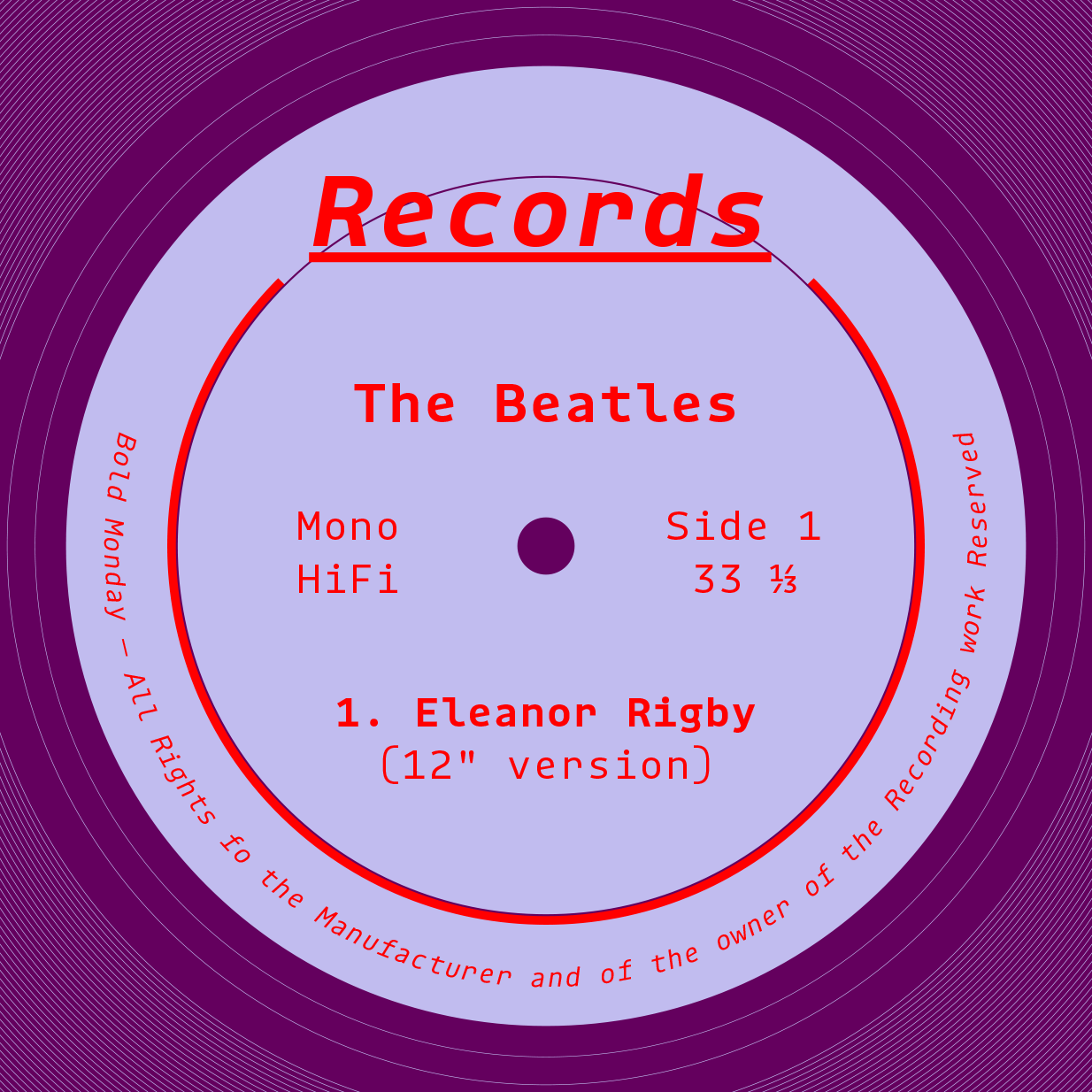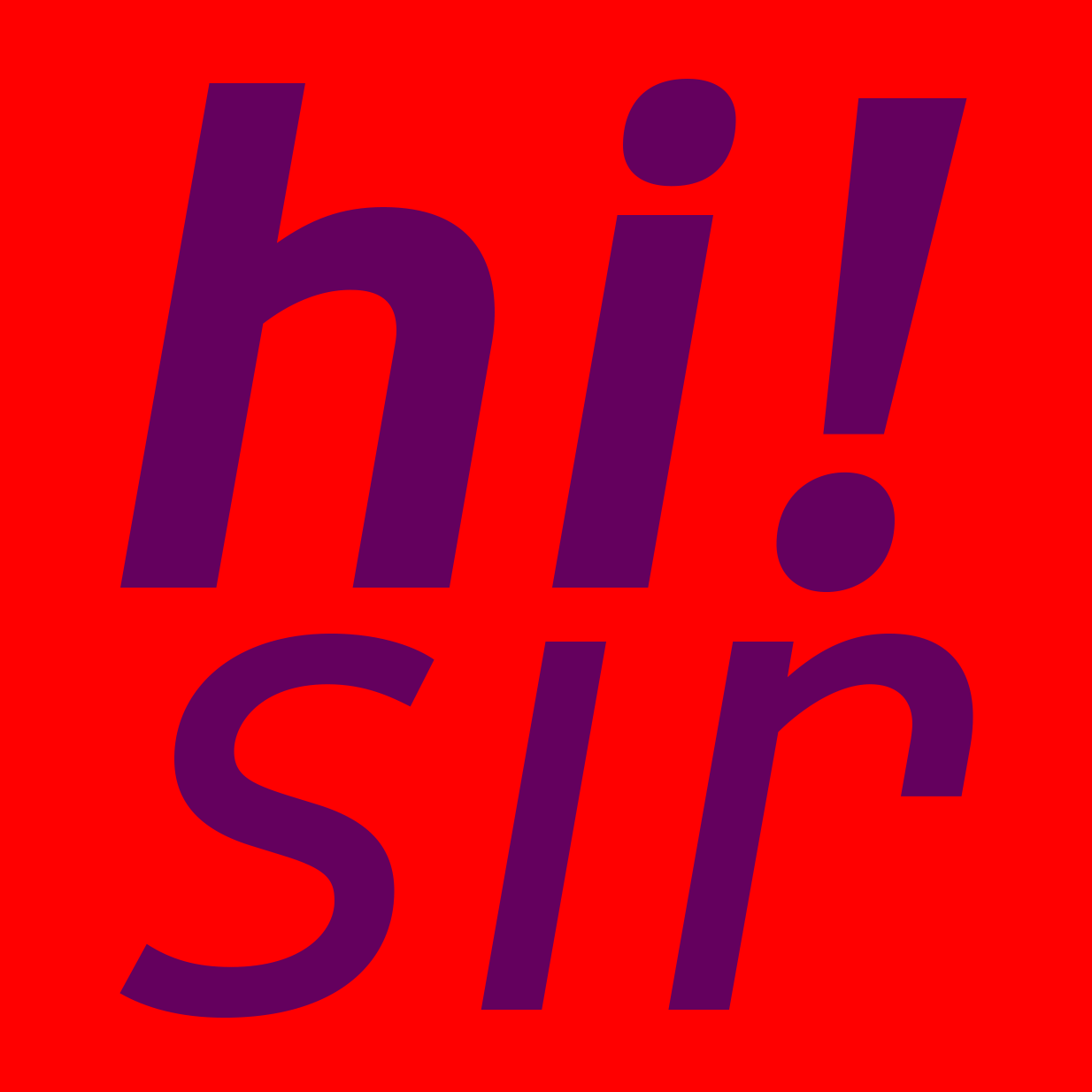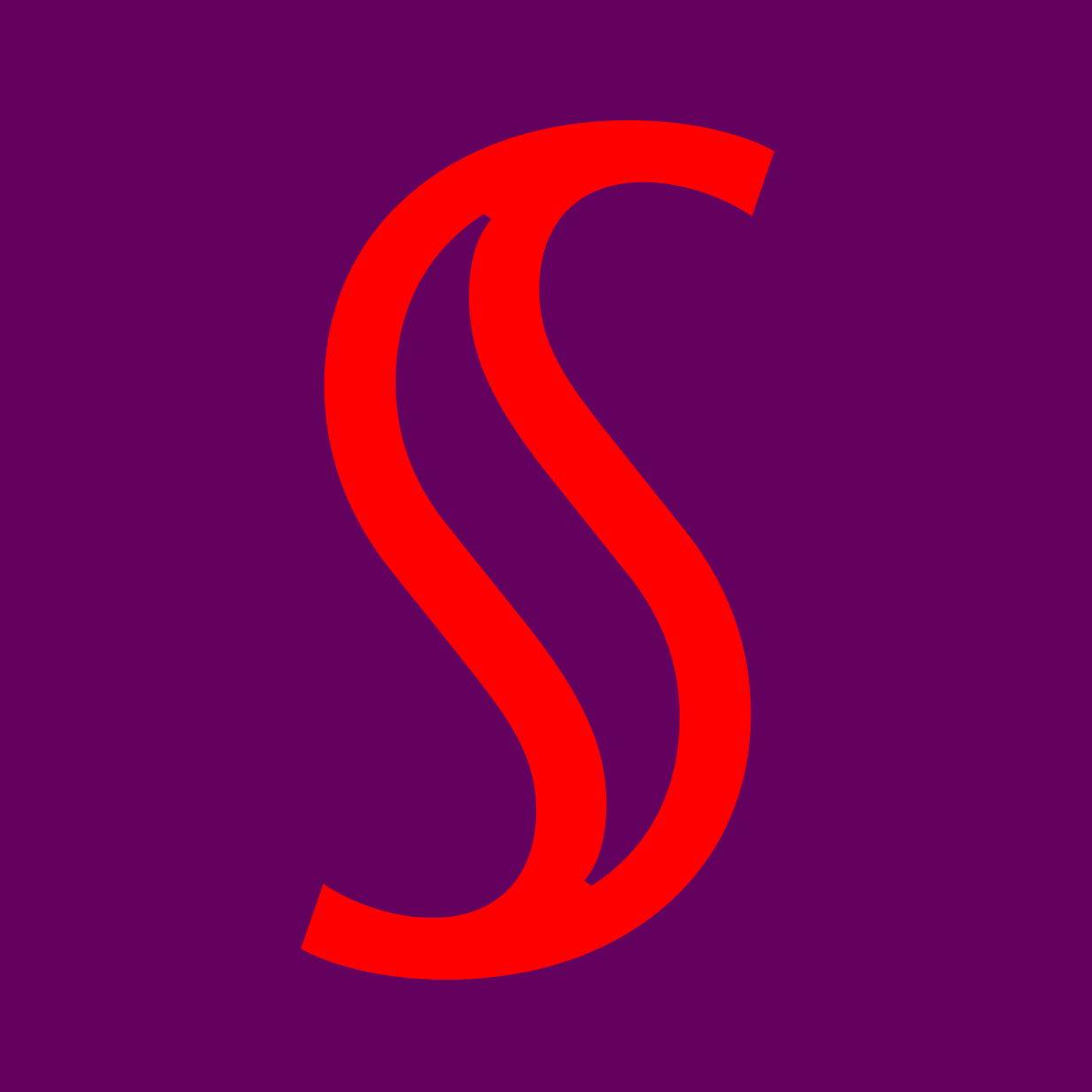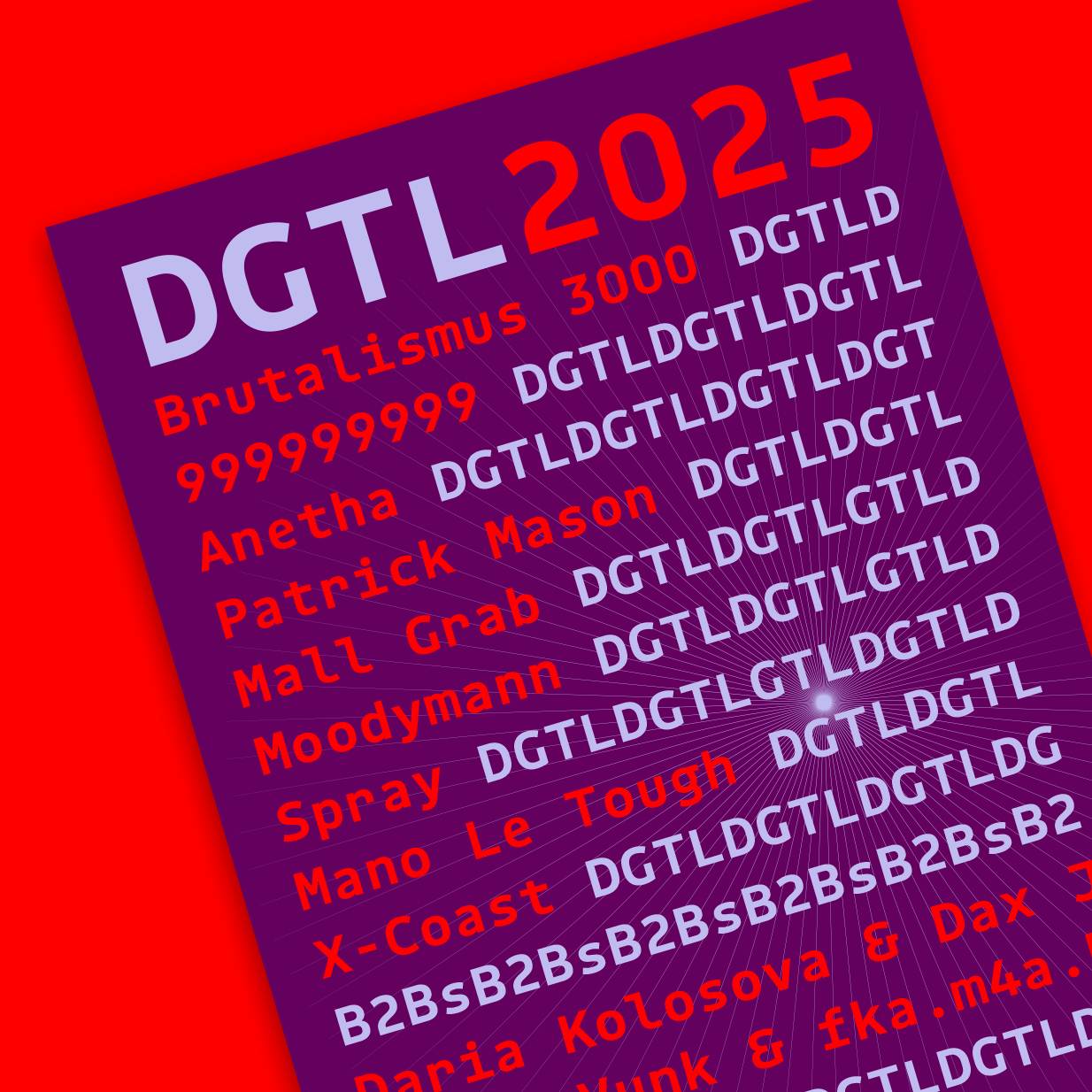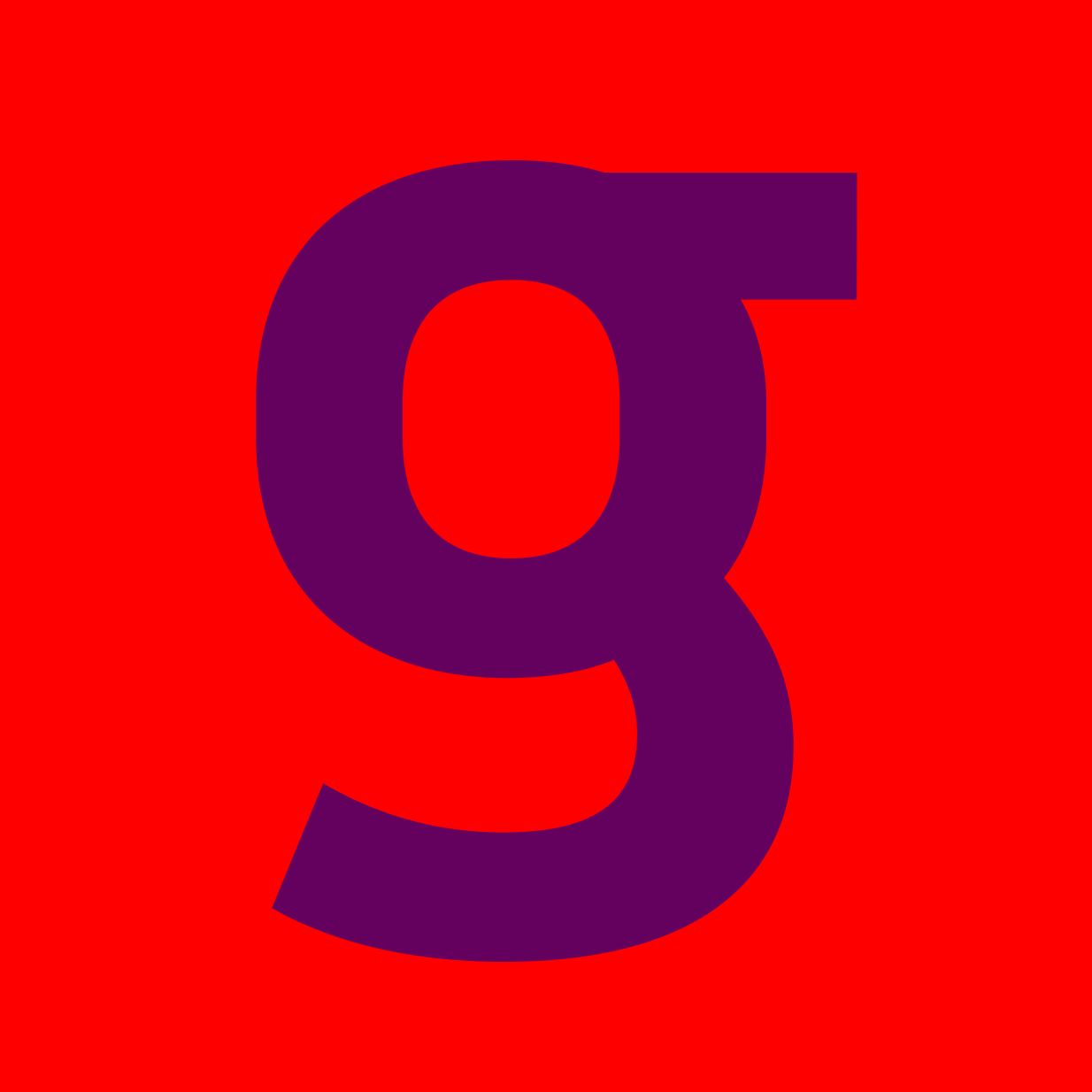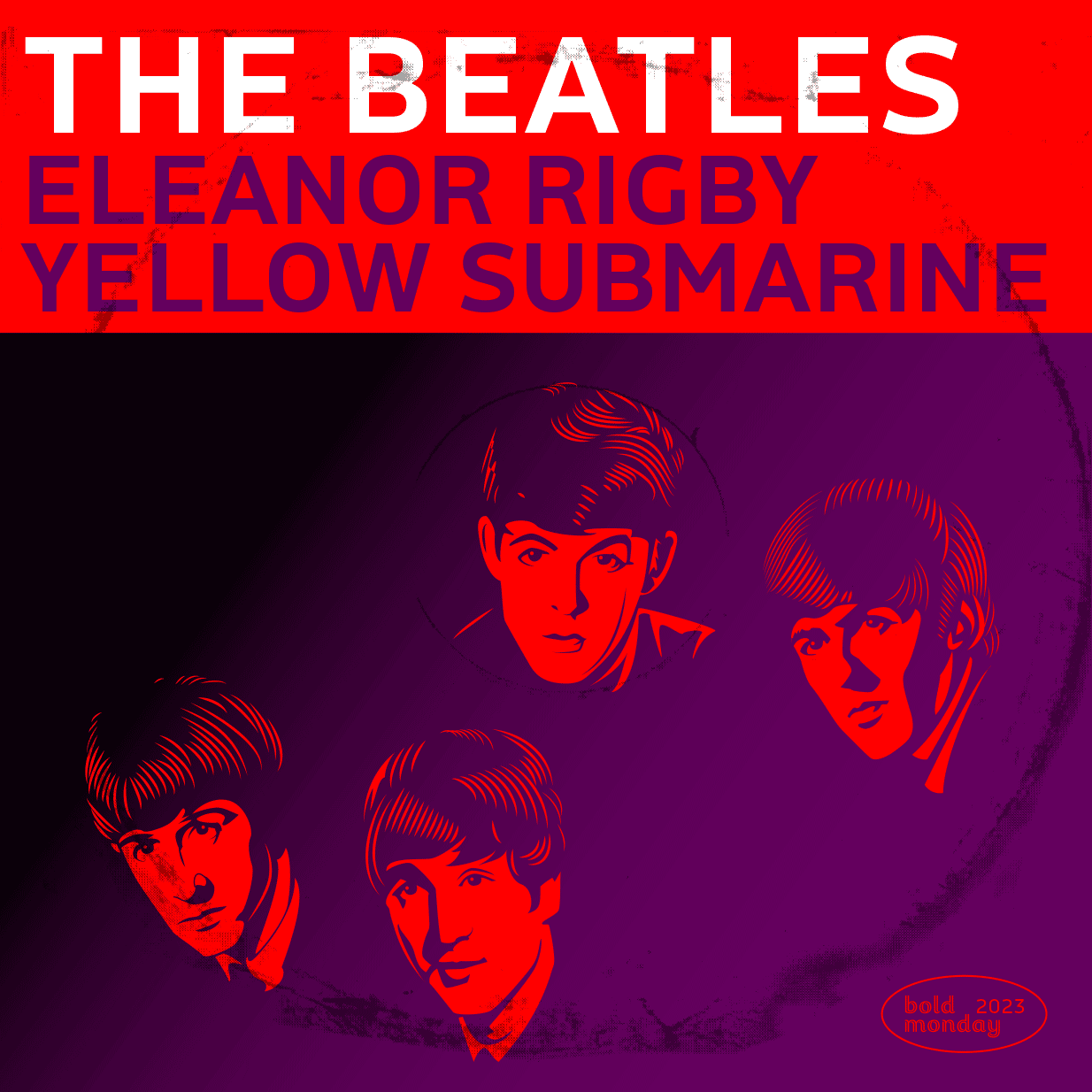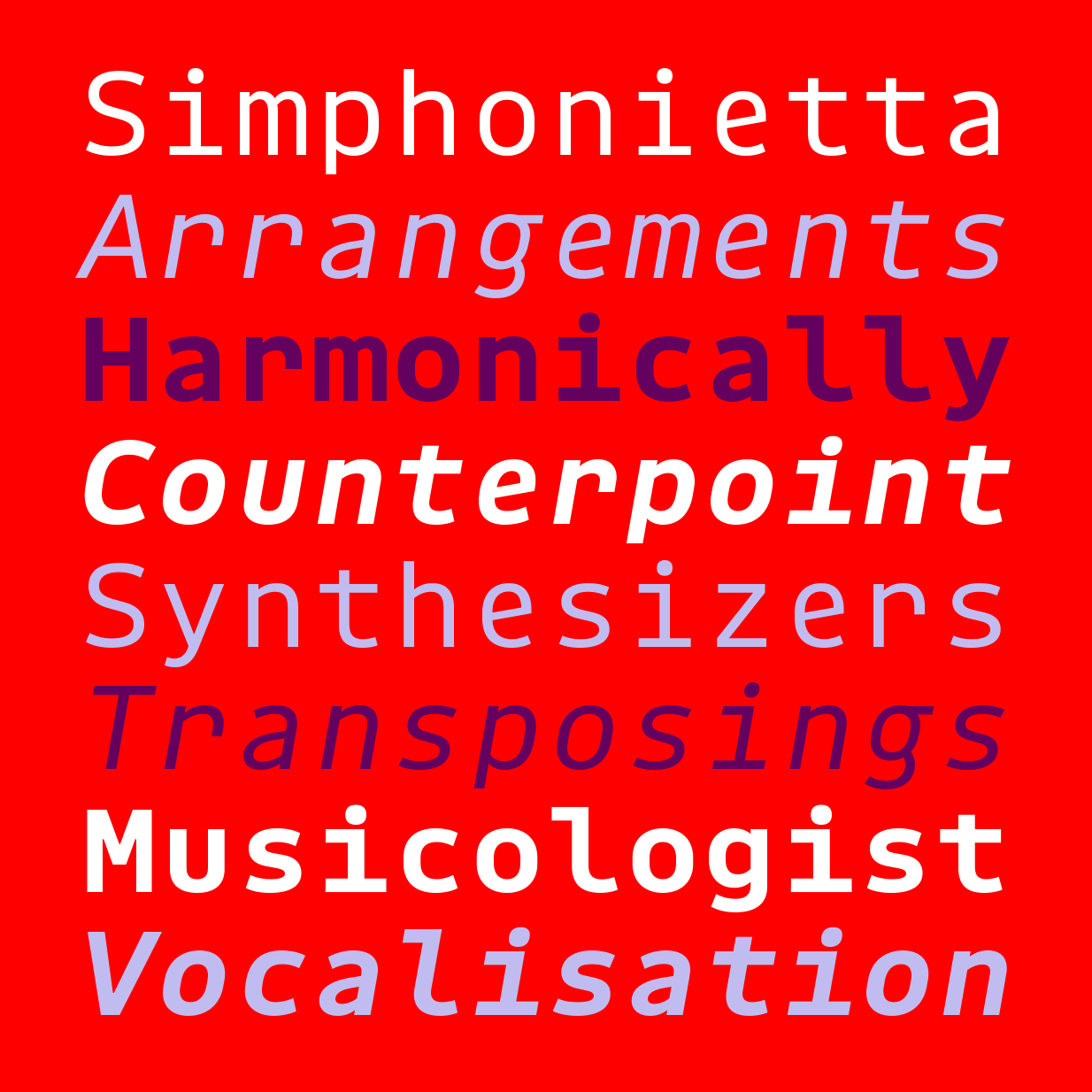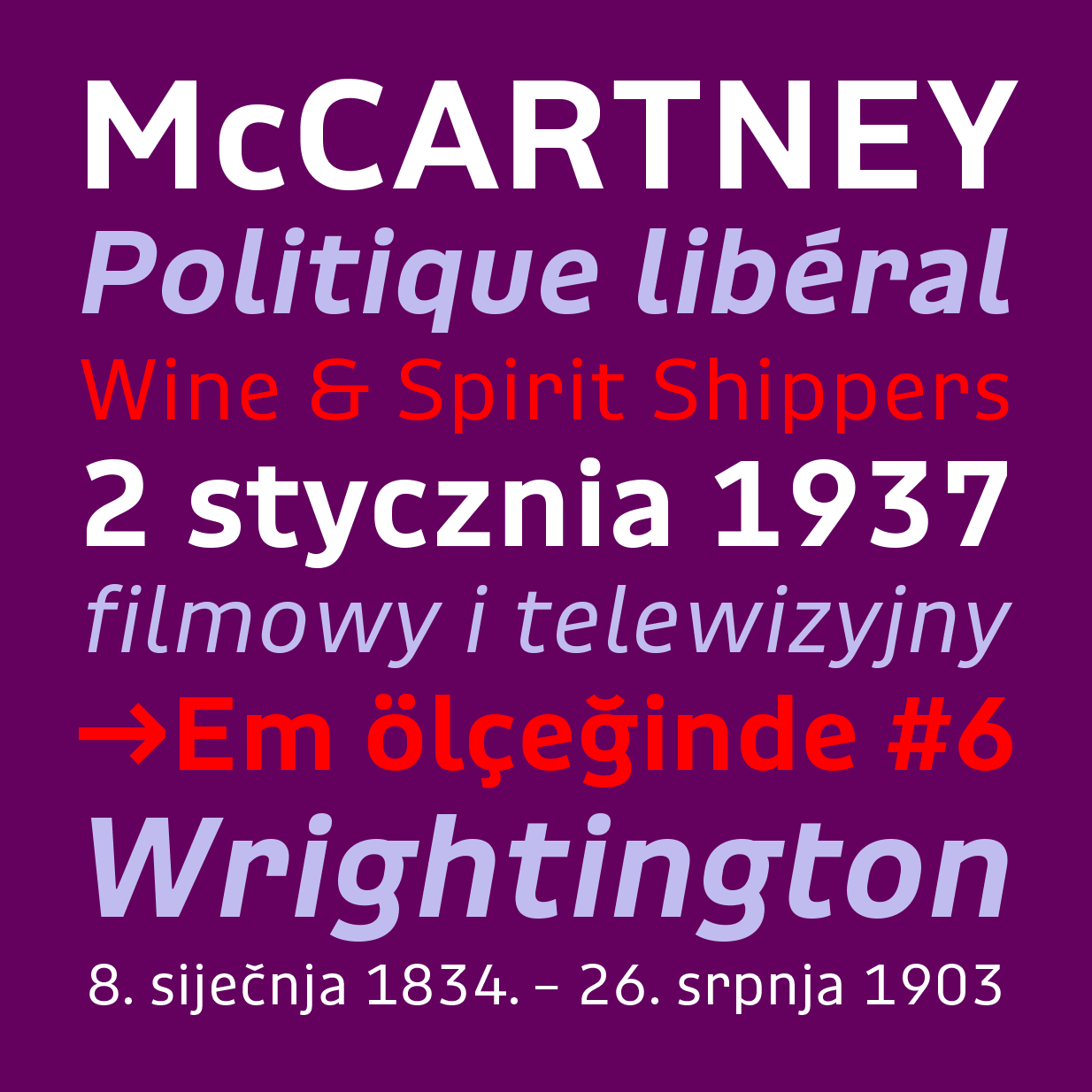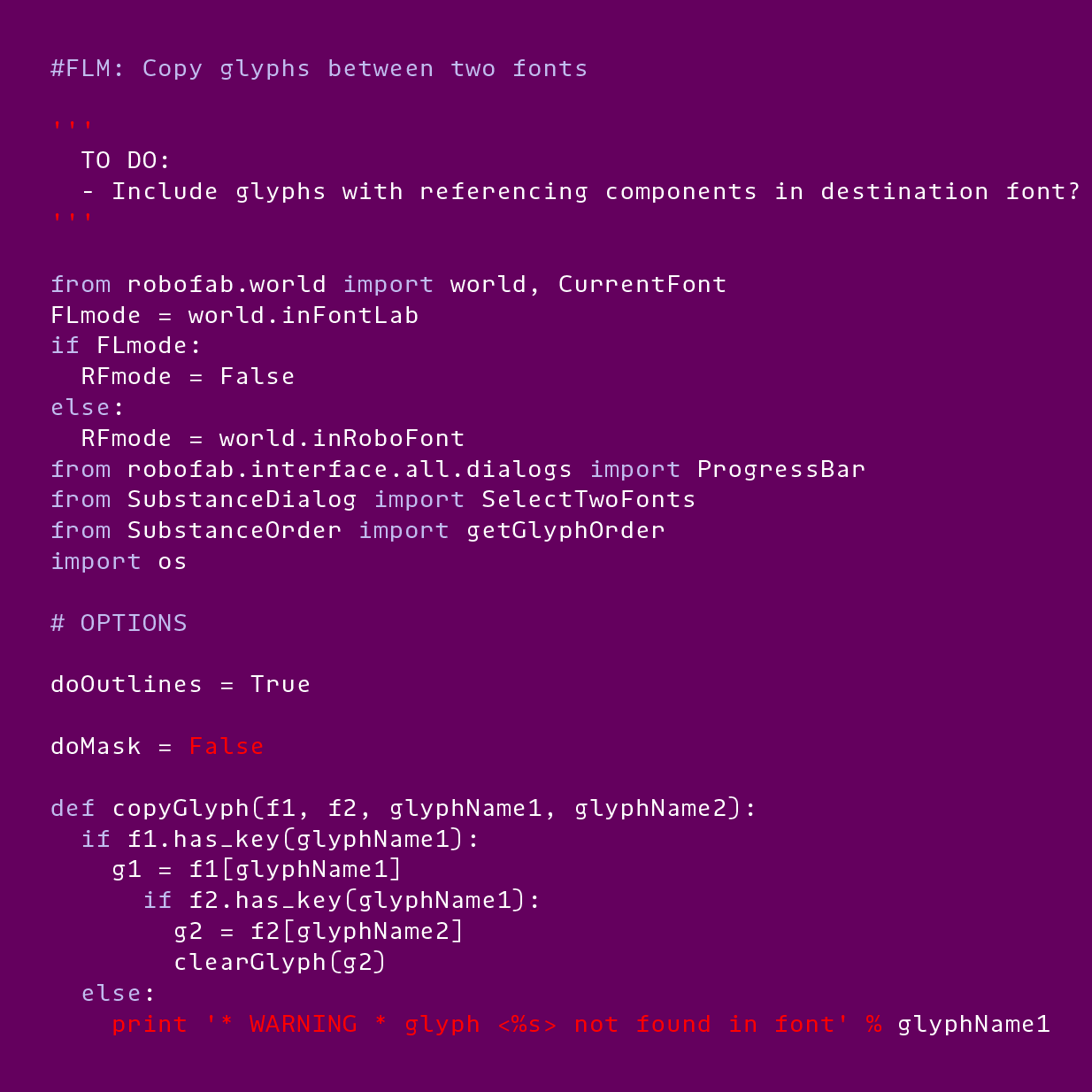
Rigby
A refreshingly uncomplicated, unique sans-serif? Let us introduce you to Rigby. While other typefaces outdo each other in terms of number of weights, widths, axes, and interesting features, Rigby by Pieter van Rosmalen will impress you mostly by the latter. It is a small series in two weights only, but with corresponding italics (obliques) and a monospaced sibling. The classic set is sometimes referred to as RIBBI – Regular, Italic, Bold, Bold Italic. This makes using Rigby fantastically easy. All styles compliment each other for exactly the right distinction and emphasis.
Rigby started as a retail version of a custom typeface developed for NTR, a Dutch public broadcaster specializing in information, education and culture. The expressive logo by Studio Turner was to be accompanied by a performant but also warm and fitting typeface. While our NTR-fonts were sharp and rounded at the same time, van Rosmalen settled for all-sharp/angular terminals for Rigby but still kept personable letterforms like the unique lowercase g and e. If these are too flavourful for your use-case, just switch to the more toned-down alternatives via OpenType features: “normal” g, e with straight bar, and single-storey a. (You can also access these alternates individually via stylistic sets.) However, the personable feel of these default characters is what makes the monospaced family extra special.
Apart from the stylistic alternates, Rigby comes with a rich set of contextual alternates for better looks of certain letter combinations. Plenty of accented characters cover 40 Latin-based languages. Use it where ever your standard text-editor font is too boring but an expansive family with 80 styles would be too overwhelming.
Pieter van Rosmalen